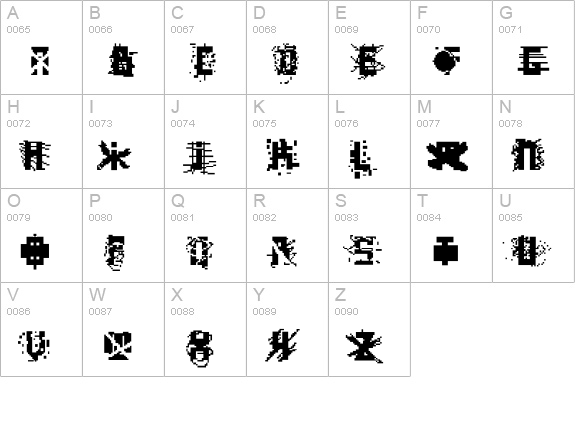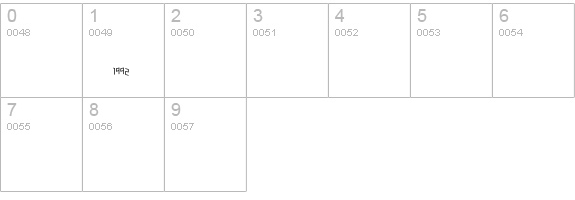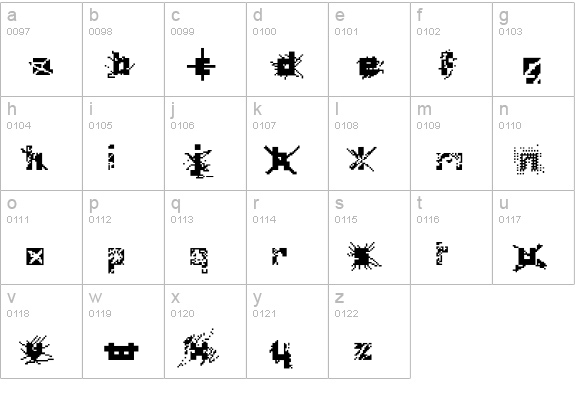
ScratchedOut Font Details
Introducing ScratchedOut, a captivating and versatile font that effortlessly adds a touch of edgy sophistication to any design project. With its unique blend of ruggedness and elegance, ScratchedOut is the perfect choice for those seeking to make a bold statement. Crafted with meticulous attention to detail, each character of ScratchedOut features intricate scratches and imperfections, giving it an authentic hand-drawn appearance. This attention-grabbing font is ideal for creating eye-catching headlines, stylish logos, striking posters, and much more. But what sets ScratchedOut apart is not just its stunning aesthetics – it is also a font that is freely available to download at FontsMarket.com. Yes, you read that right! This exceptional font is completely free, allowing you to unleash your creativity without any restrictions. Whether you're a professional designer or a hobbyist, ScratchedOut empowers you to bring your visions to life without breaking the bank. But don't be fooled by its price tag – ScratchedOut is not just another run-of-the-mill free font. Its high-quality design and versatility rival even the most premium fonts on the market. Its wide range of characters, including uppercase, lowercase, numerals, and punctuations, ensures that you have all the tools you need to create truly outstanding designs. So why wait? Download ScratchedOut today from FontsMarket.com and watch as your designs come to life with a touch of gritty elegance. Let ScratchedOut be your secret weapon in creating captivating visuals that leave a lasting impression. Embrace the freedom of creativity with this extraordinary font and get ready to stand out from the crowd.